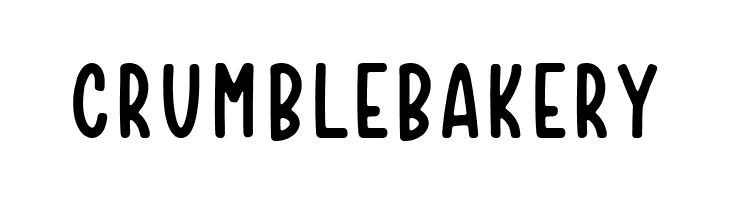
A bold, hand-drawn font with an energetic and playful style.
A playful, cartoon-themed decorative font with illustrated characters for each glyph.
A bold, angular font with a futuristic, geometric style.
A whimsical and decorative font with intricate loops and flourishes.
A playful, decorative font with characters framed in calendar-like boxes, perfect for fun designs.
A playful, casual handwritten font with smooth, flowing curves.
A modern, minimalist font with thin strokes and a clean, elegant design.
A bold, jagged font with sharp, spiky edges for an aggressive look.
设计师偏爱 Embuhlah, ArtistsOne, Scary Glyphs and Nice Characters, Donovan Quidaw and 101! Day Planner,因为其造型干净、适用范围广—— 从品牌识别到落地页、海报都能胜任。